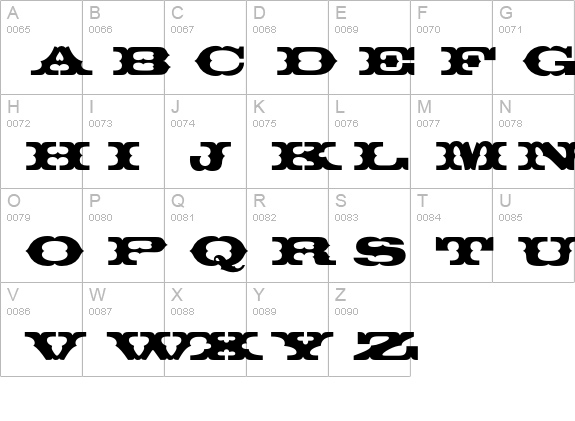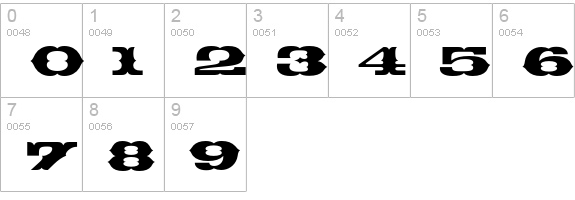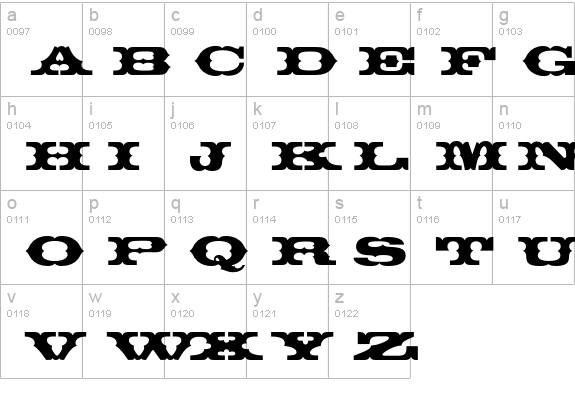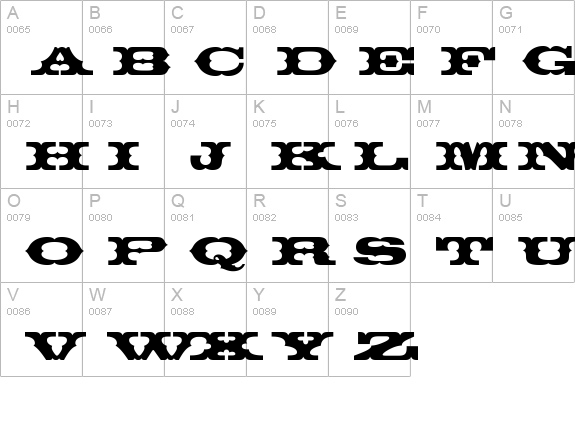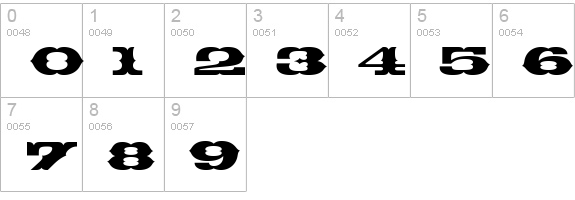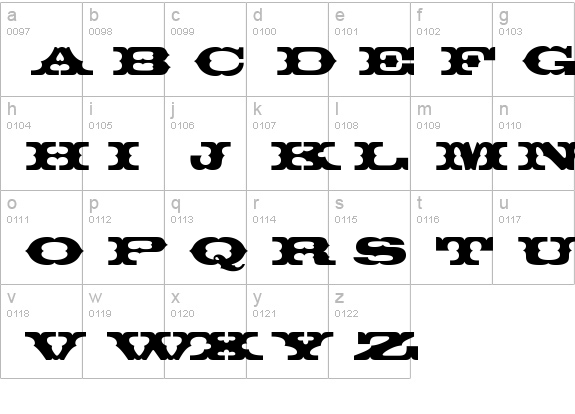
Introducing Thunderbird font, a stunning typeface that captures the essence of power and elegance. With its bold and strong letterforms, Thunderbird commands attention and leaves a lasting impression. What sets Thunderbird font apart is not only its visually striking design, but also its accessibility. This exceptional font is available for free download at FontsMarket.com, making it easily accessible to designers, creatives, and typography enthusiasts alike. Whether you're working on a logo, branding materials, or a poster, Thunderbird font is a versatile choice that can elevate any project. Its clean and well-defined shapes ensure legibility at any size, while its unique personality adds a touch of sophistication. The Thunderbird font family offers a range of weights and styles, allowing for endless possibilities and creative exploration. From the bold and impactful Thunderbird Black to the refined and elegant Thunderbird Light, each variant maintains the font's distinctive character. With Thunderbird font, you can effortlessly convey a sense of strength, confidence, and modernity. Its sleek lines and carefully crafted curves create a harmonious balance, making it a perfect choice for both digital and print designs. Download Thunderbird font for free today at FontsMarket.com and experience the power and versatility it brings to your creative projects. Elevate your typography game with this exceptional font and make a lasting impact on your audience.